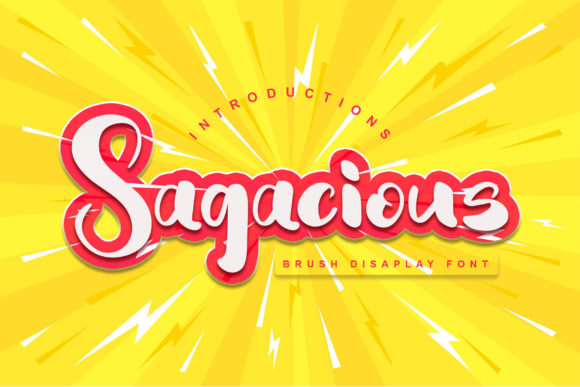
Discover Sagacious: The Alluring Script Font for Unforgettable Designs
Journey into the realm of typography and unveil the charm of Sagacious, a modern display font crafted with meticulous attention to detail. Its graceful curves and elegant lines exude an air of sophistication, inviting you to create designs that resonate with your audience.
Unleash Your Creativity with Sagacious
With Sagacious by your side, let your imagination soar and transform your creative visions into reality. This versatile font is ideally suited for fashion branding, adding a touch of allure to your designs. Its stylish lettering also lends itself perfectly to editorial projects, capturing the essence of your words with grace and clarity.
A Font That Speaks to Your Soul
Sagacious is not just a collection of letters; it's an expression of art, a symphony of lines and curves that speak directly to your soul. Its readability and friendly nature make it a joy to use, while its stylish flair adds a touch of magic to your designs.
Experience the Sagacious Difference
Step into a world where your designs come alive with newfound elegance. Sagacious is the perfect font for those seeking to make a statement, to leave an imprint on the hearts and minds of their audience. Its beauty is undeniable, its impact unforgettable.
Make Sagacious Your Creative Ally
Join the ranks of discerning designers who have embraced Sagacious as their font of choice. Its versatility knows no bounds, adapting seamlessly to a myriad of projects, from logos and branding to invitations and social media posts. Trust Sagacious to elevate your designs to new heights, leaving a lasting impression that will captivate and inspire.